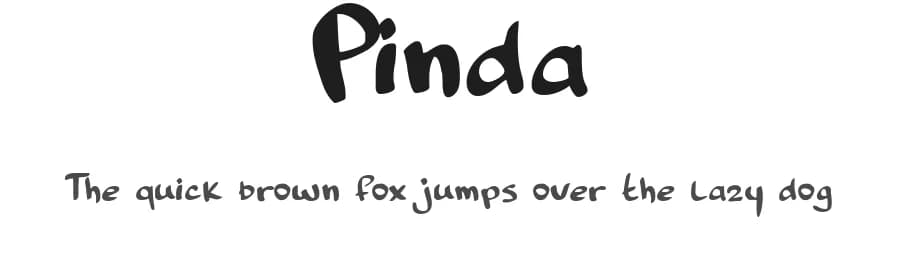
About Pinda Font
Pinda is a script & handwritten font designed by Samyuli. It includes 192 glyphs, a regular weight, TTF (TrueType) format, and 199 languages. Pinda is free to download; check the license details on this page before commercial use. Script & handwritten fonts like Pinda work best for wedding invitations, greeting cards, signatures, and elegant branding.
Pinda Font is a script font that shines as a display or heading face. Pair it with a clean sans-serif or serif font for body text β the contrast creates a clear hierarchy while the two styles stay balanced and easy to read.
Pinda Font
by Samyuli